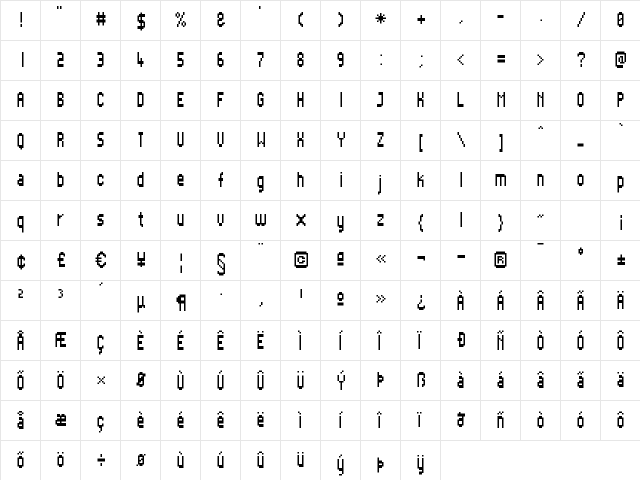
Dexxi Condensed Regular
Design Context for Dexxi Condensed Typeface
Dexxi Condensed offers clean, dependable letterforms without strong stylistic allegiance, making it a practical choice for designers who need flexibility. Its narrow stance lets it pack a punch even in space-constrained designs.
Pro Tip: Use Dexxi Condensed in both headline and body roles to test its range before committing to a single application.